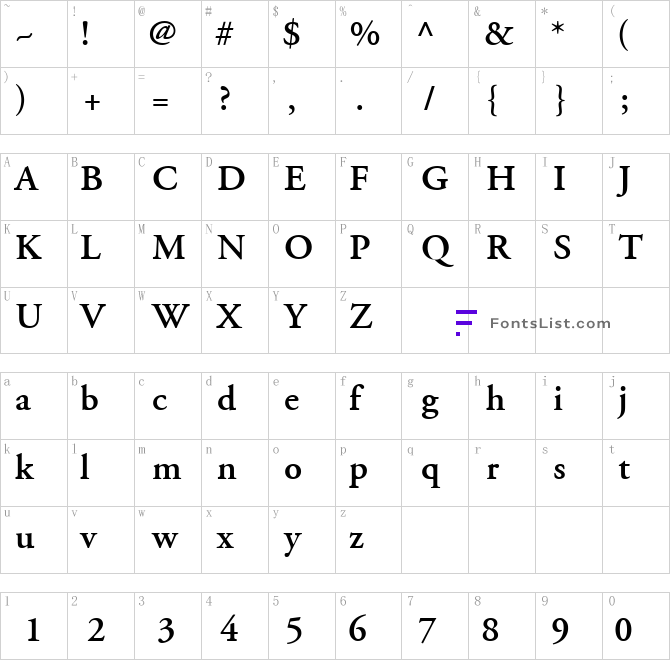
- Font Name:AGaramond LT
- Subfamily:Linotype Library GmbH: Adobe Garamond LT Semibold: 2002
- Full Name:Adobe Garamond LT Semibold
Adobe-Garamond-LT-Semibold.ttf is a very beautiful artistic font, Adobe-Garamond-LT-Semibold.ttf is widely used in the design and printing of various books and pictures,Adobe-Garamond-LT-Semibold.ttf has a strong visual impact,Adobe-Garamond-LT-Semibold.ttf is a commonly used font in newspapers, magazines and books, and is used in posters, e-commerce Poster design, store design, logo design, font design and other fields.Adobe-Garamond-LT-Semibold.